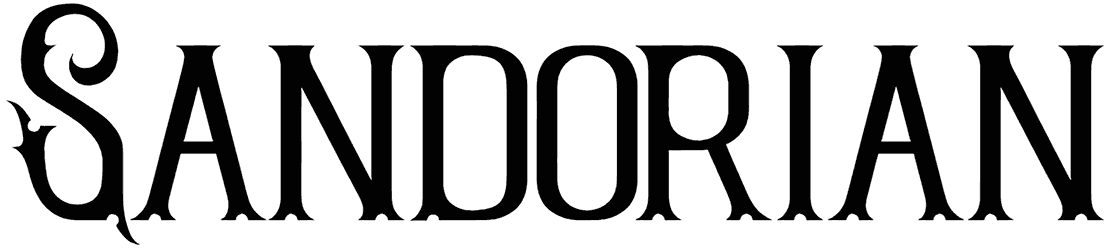
Sandorian Font
In case you are passionate about having a classy retro font, Sandorian really deserves to be on your radar. This magical gothic font comes with two distinctive versions of uppercase letters, so you have a wide range of options in the middle of designing posters, banners, flyers, billboards, and logos.
Considering its ability in sharing a sense of vintage, momentum, and jauntiness, not supporting lowercase letters is a negligible matter.